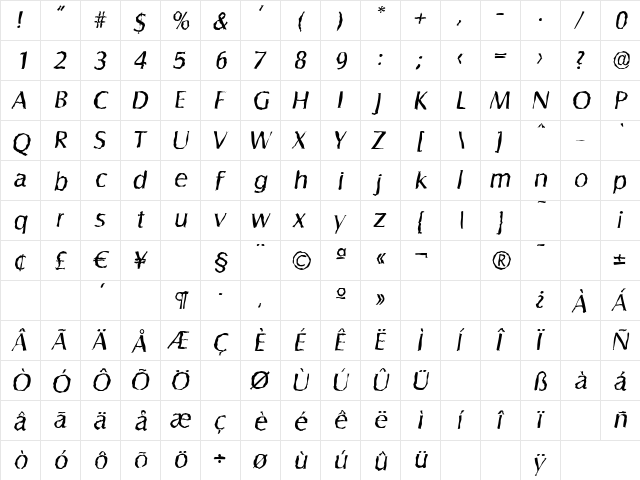
SalzburgRandom Italic
Design Context for SalzburgRandom Typeface
SalzburgRandom takes a measured approach to typography — its balanced proportions and neutral character make it a reliable workhorse for both digital and print work. The slanted form adds forward momentum and visual energy.